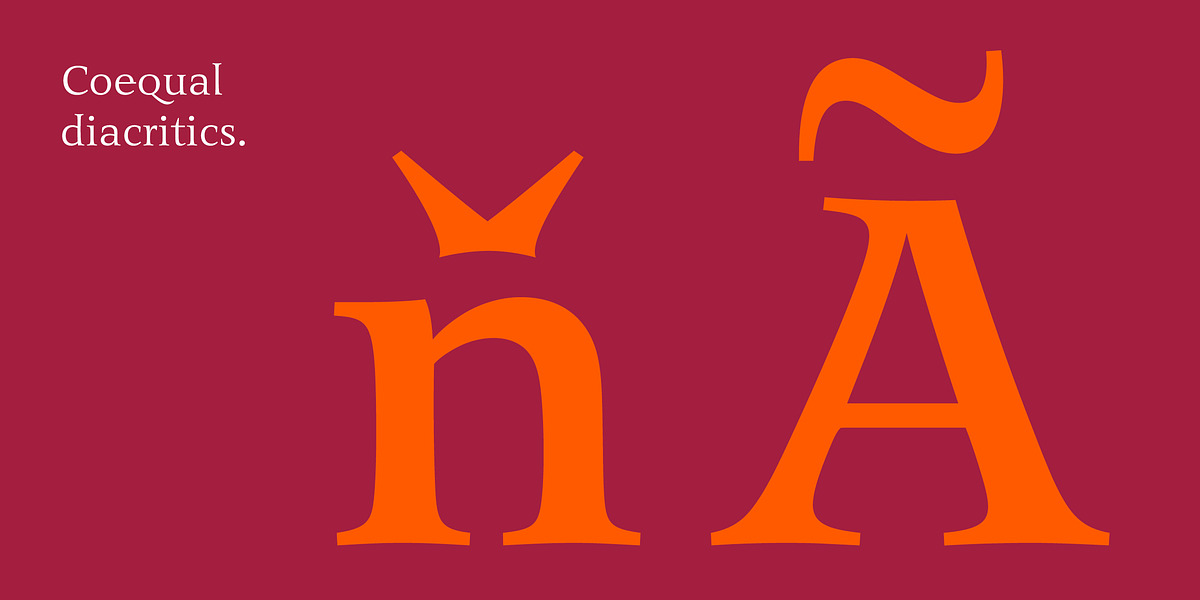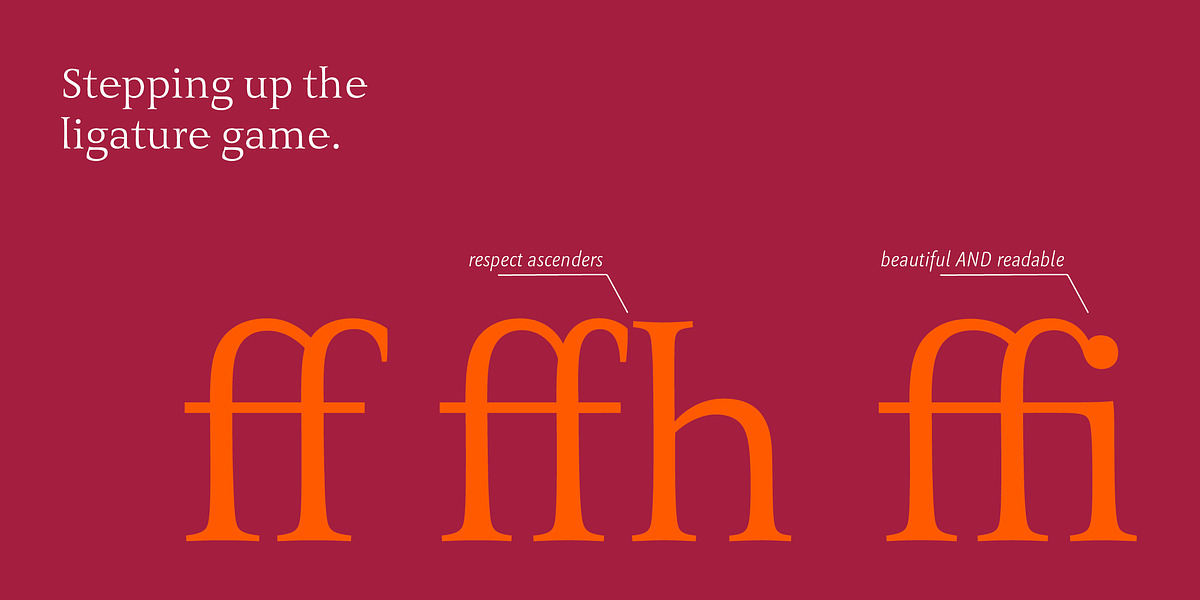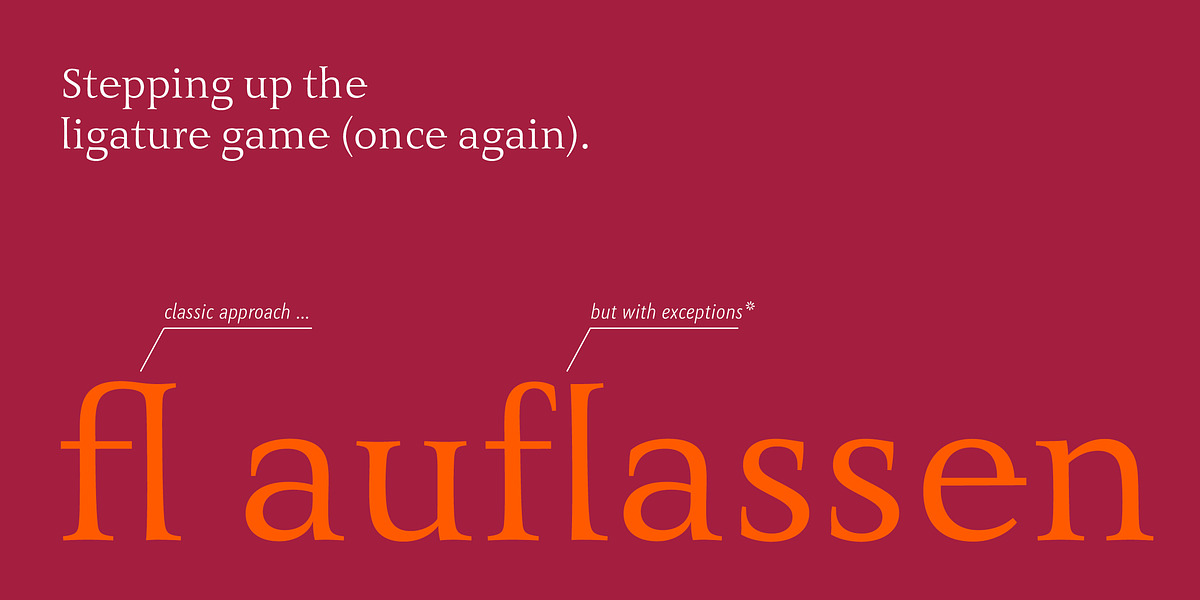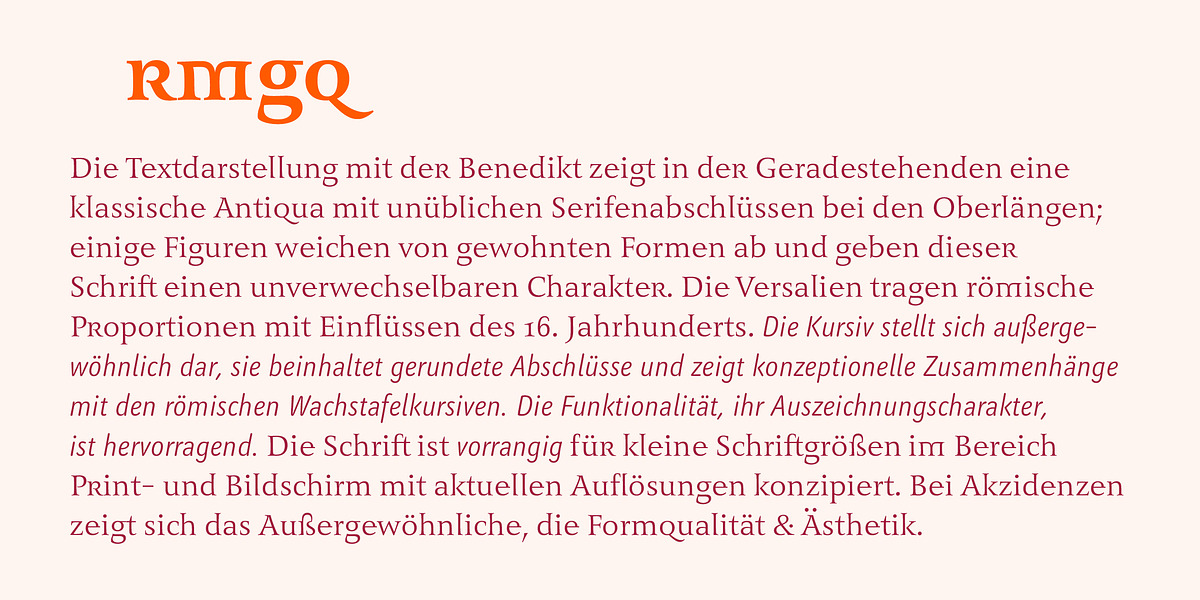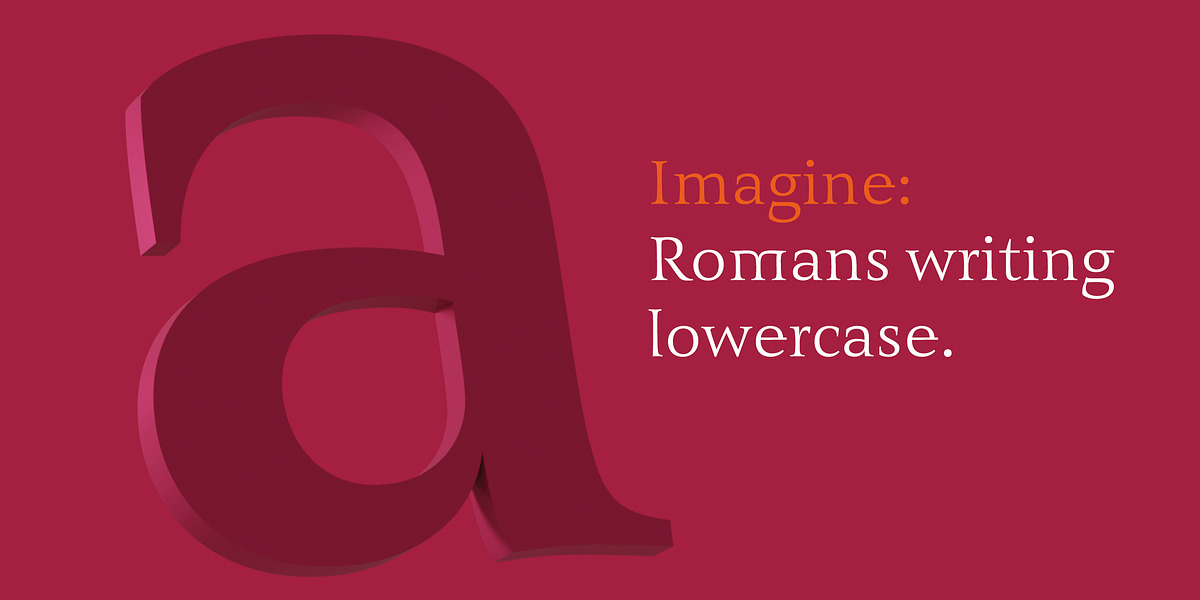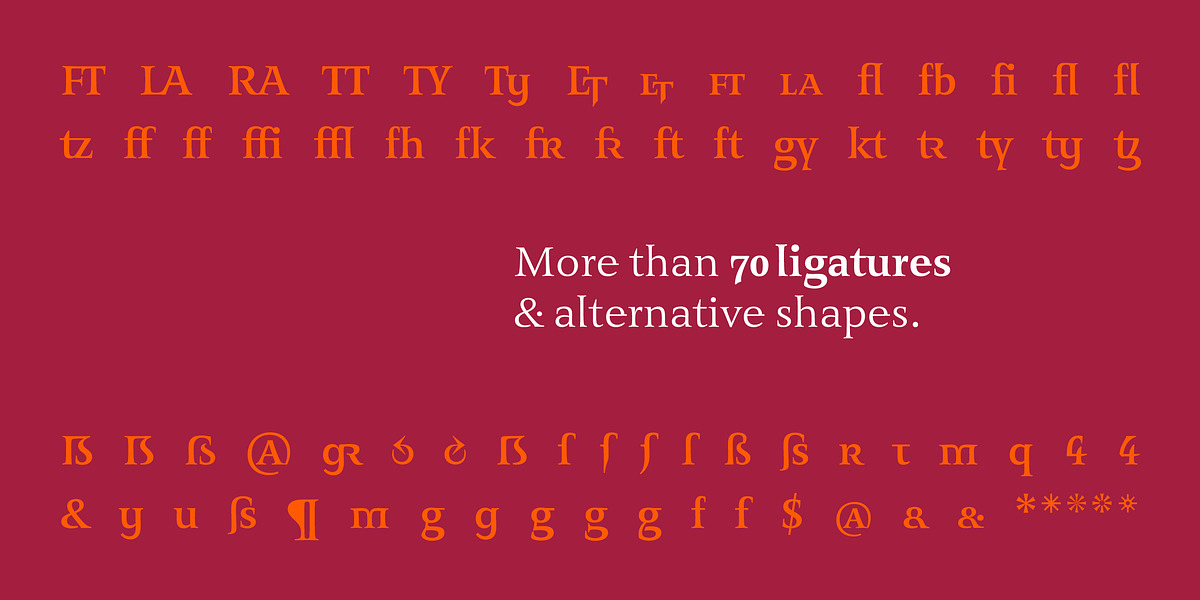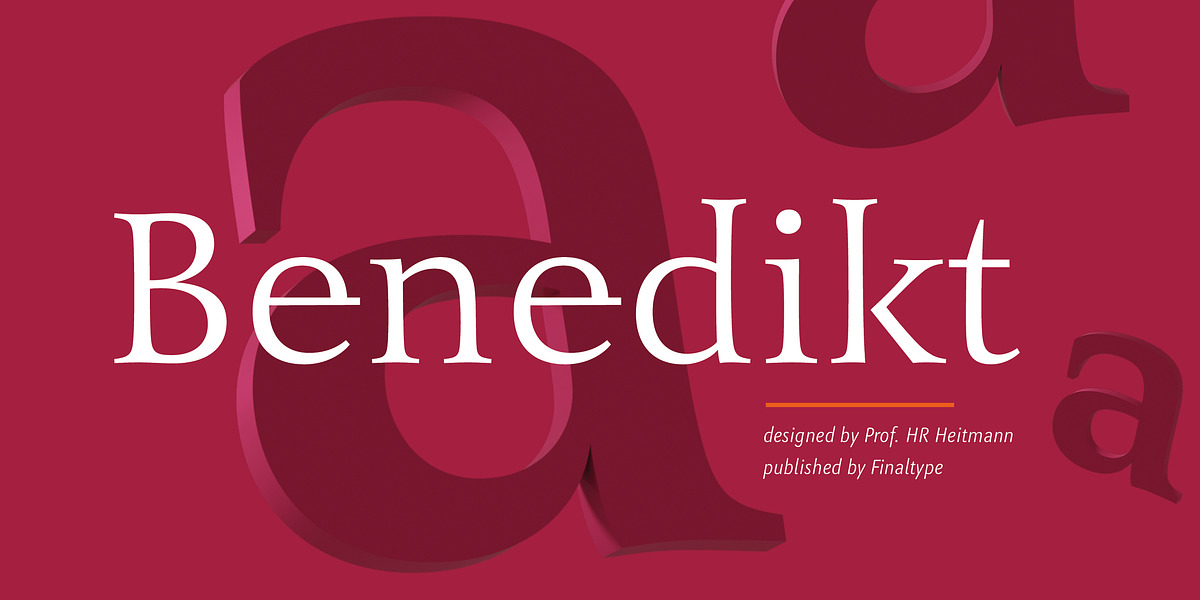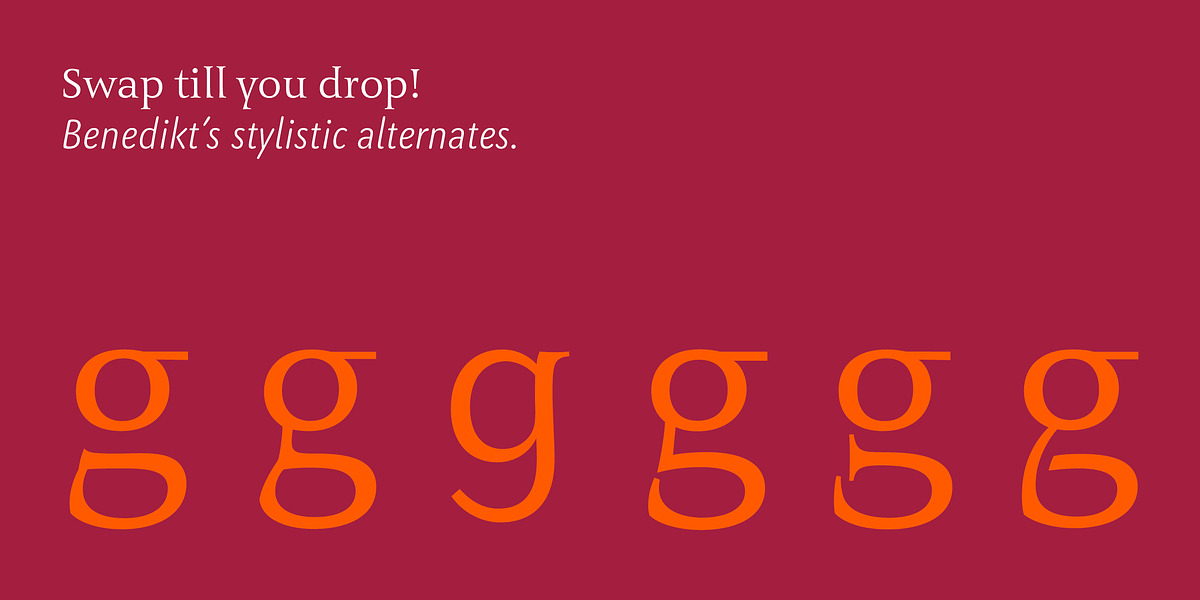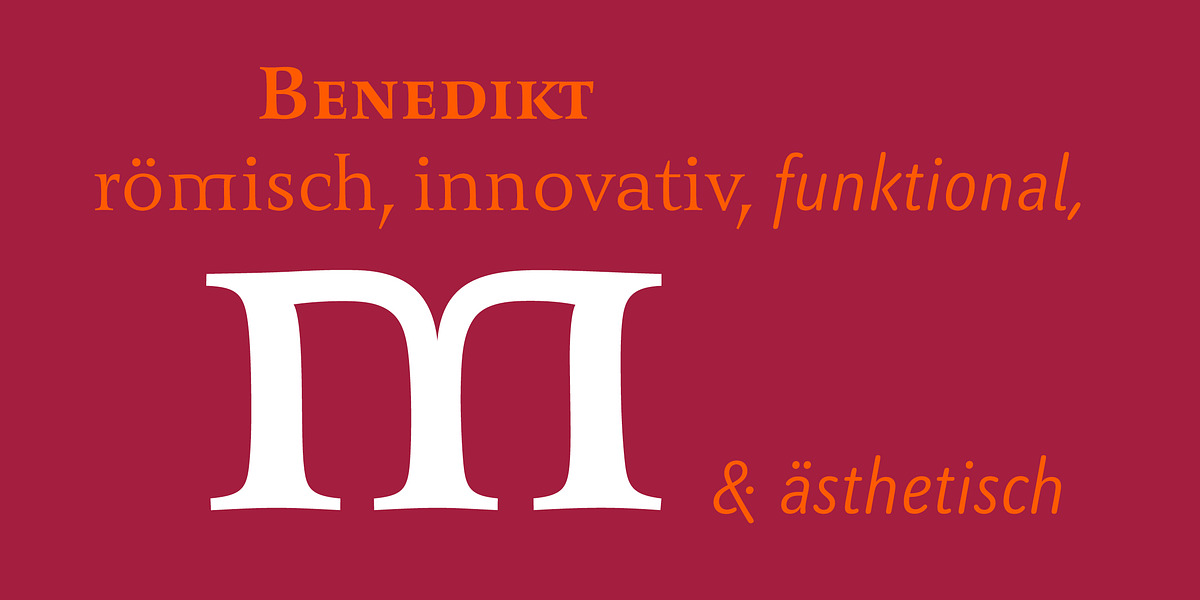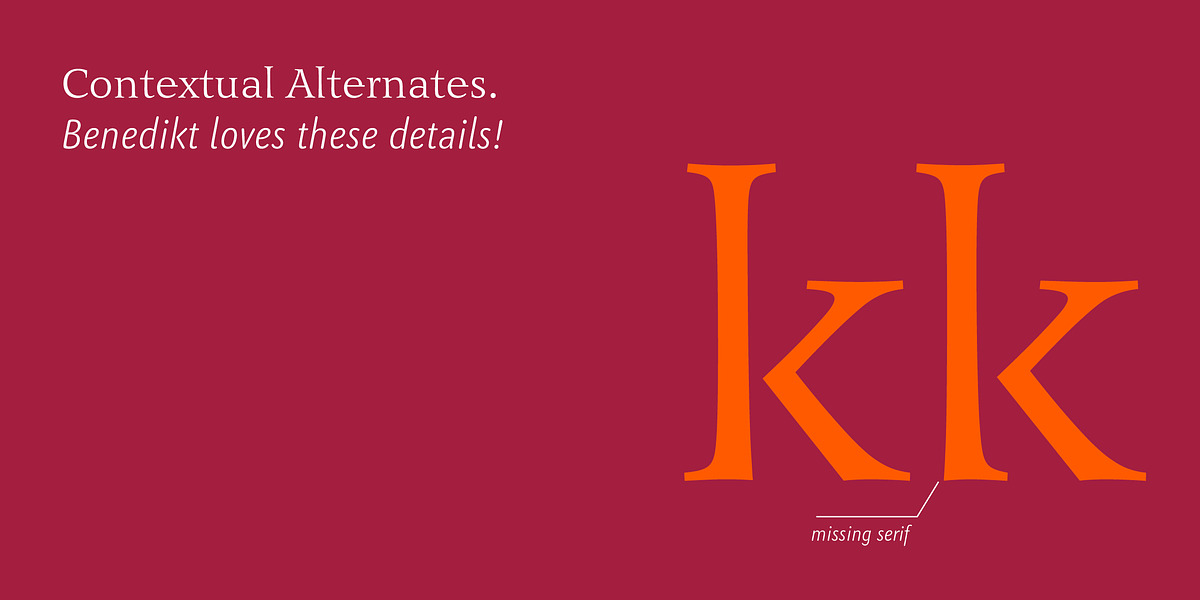
Benedikt
Benedikt is a serif typeface that combines a classic feel with modern design elements. It features a sophisticated number system and true small caps. The typeface's balanced appearance results from careful spacing based on the experience of Prof. Hans R. Heitmann.